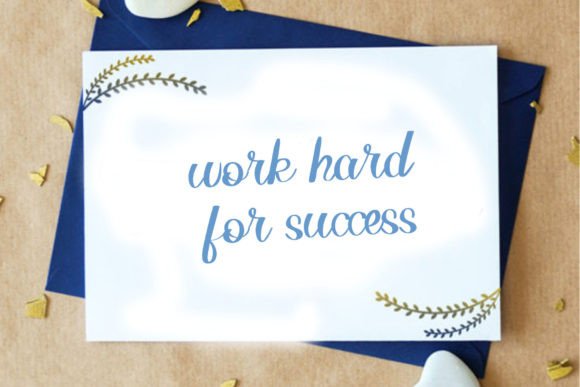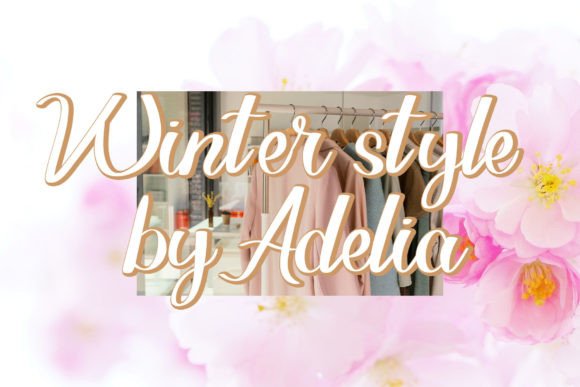
The Magic of Caligraphy Font: Elevating Designs with Elegance
I’ll never forget the time I was working on a wedding invitation project, and my client asked for a font that exuded luxury and sophistication. I scoured the internet, tried countless fonts, but nothing seemed to fit the bill. That was until I stumbled upon Caligraphy Font. Its delicate, handwritten strokes and fluidity instantly captivated me. I knew right then and there that it was the perfect fit for the project. And, as it turned out, the client loved it too! 💕
A Personal Review of Caligraphy Font
- 💫 Elegant and sophisticated: Caligraphy Font brings a touch of luxury to any design.
- ✅ Versatile: Perfect for invitations, greeting cards, and high-end branding.
- 🎨 Artistic: Its handwritten strokes capture the essence of traditional calligraphy.
- 👍 Easy to read: Despite its elegant nature, the font remains legible and clear.
While Caligraphy Font is an exquisite script font, it’s not without its limitations. For instance:
- 🤔 It can be a bit overkill for body text. It’s best suited for headings or titles.
- ⚠️ Some characters may not work well in smaller sizes, so it’s essential to test the font before finalizing your design.
The Story Behind Caligraphy Font
Caligraphy Font was inspired by the art of traditional calligraphy. Its creator, a talented typographer, aimed to capture the elegance and fluidity of handwritten calligraphy in a digital font. The result is a beautiful script font that brings a touch of sophistication to any design.
| Font Name | Caligraphy Font |
| What is Caligraphy Font best suited for? | Caligraphy Font is ideal for invitations, greeting cards, and luxurious branding. |
| Is Caligraphy Font easy to read? | Yes, despite its elegant nature, Caligraphy Font remains legible and clear. |
| Can I use Caligraphy Font for body text? | While possible, Caligraphy Font is best suited for headings or titles. It may not be the best choice for body text. |
| Does Caligraphy Font support OpenType features? | Yes, Caligraphy Font supports OpenType features, including stylistic alternates and glyphs. |